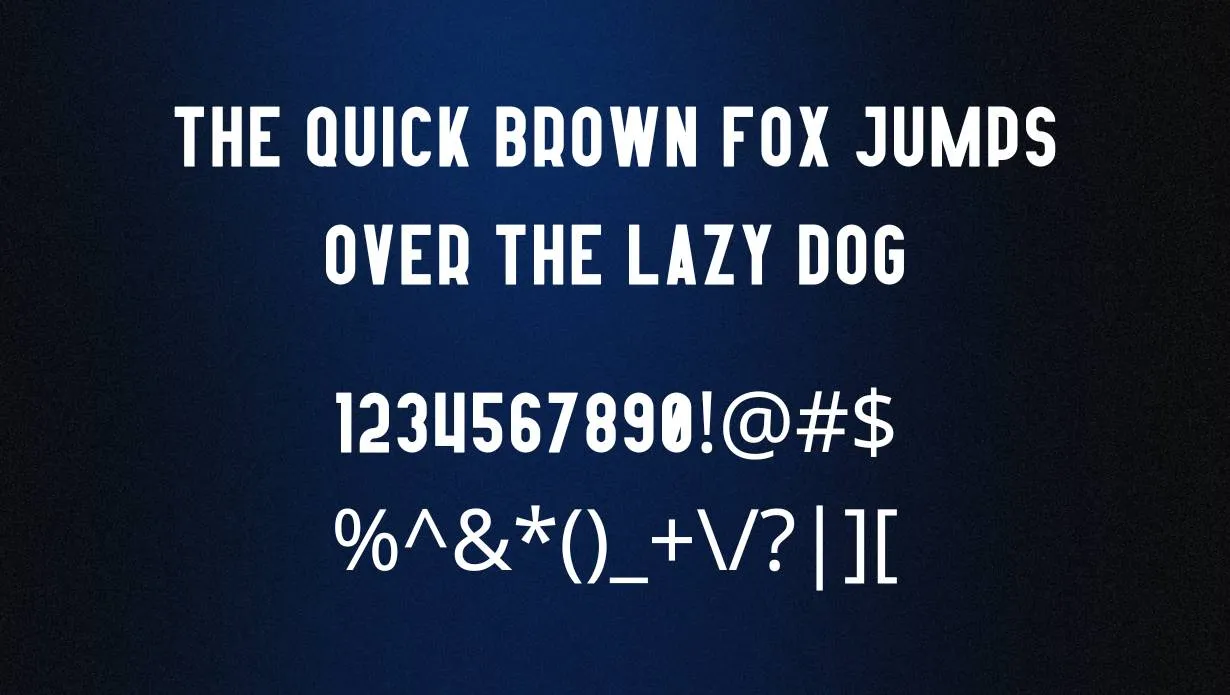
The Afterclap font is known for its versatility and engaging style, making it a popular choice for designs that need a unique and dynamic look. Its playful and slightly uneven letters are ideal for communicating a lively and casual message.
This font is commonly used in social media graphics, posters, or personal branding. The weight of Afterclap font varies from regular to bold, offering flexibility in emphasizing text. Its width is typically moderate, allowing for easy readability in various contexts, such as informal invitations or energetic promotional materials.
| Name | Afterclap Font |
| Designer | Unknown |